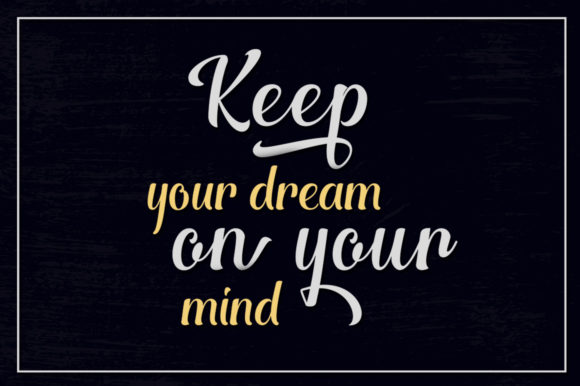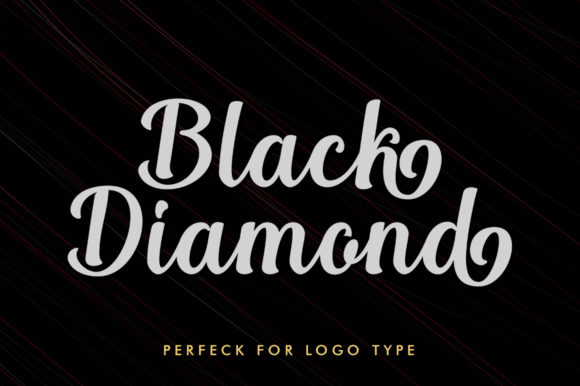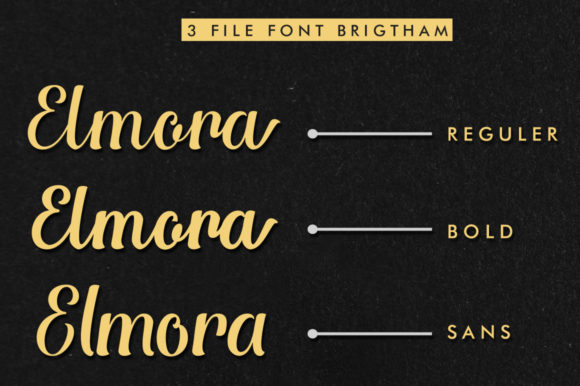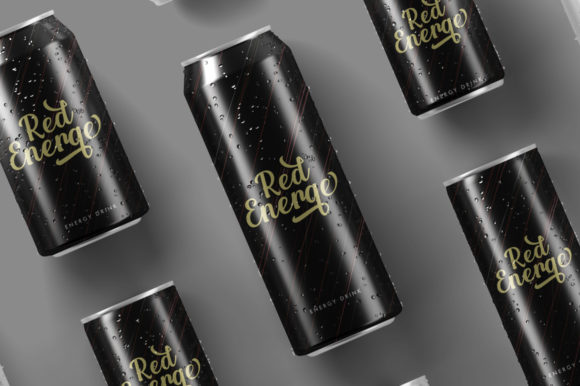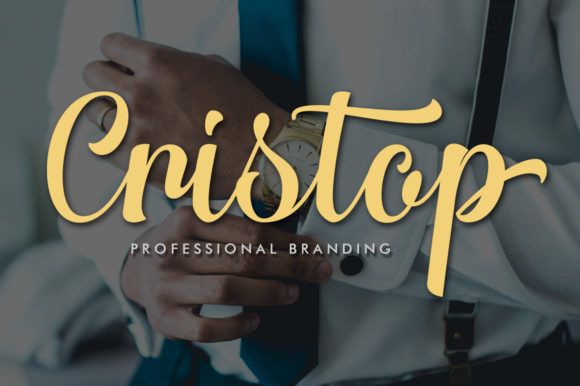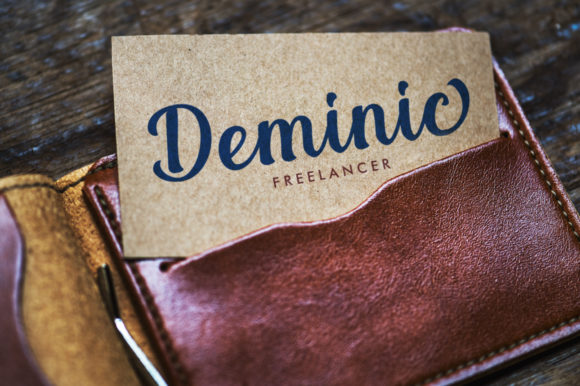
The Perfect Blend of Style and Substance: Introducing Brigtham Font
Have you ever stared at a blank page, trying to come up with the perfect headline for your latest design project? The cursor blinks impatiently, and your mind goes blank. But what if I told you that the solution to your creative conundrum lies in a single, bold font?
Meet Brigtham Font, the gorgeous and dynamic handwritten font that’s about to revolutionize your design game. Crafted to give your headlines and logotype projects a stylish touch, Brigtham Font reads as strong, confident, and dynamic, adding tons of nostalgic character to your designs. Whether you’re a seasoned designer or just starting out, Brigtham Font is a valuable addition to your toolkit, offering a unique blend of style and substance that’s sure to elevate your creative vision.
Brigham Font Key Features
- Unique Characteristics: The Brigham Font features a unique blend of modern and traditional elements, with a focus on legibility and readability.
- Font Weight: The font has multiple weights, including light, regular, medium, bold, and heavy, allowing for a range of visual effects.
Brigtham Font Review
Overall, I’m impressed with the Brigtham Font. It has a certain charm that’s hard to ignore. Here are some of its standout features:
- ✨ Unique blend of modern and vintage elements: The font’s aesthetic is both fresh and nostalgic, making it perfect for projects that need a touch of sophistication.
- ✨ Highly legible: The font’s design ensures that text remains clear and easy to read, even at smaller sizes.
- ✨ Robust character set: The font includes a wide range of characters, including Latin, Cyrillic, and Greek alphabets.
- ⚠️ Limited font weight options: While the font has a decent range of weights, it’s not as extensive as some other popular fonts.
- ⚠️ Not ideal for high-contrast use: The font’s design can sometimes make text appear washed out or difficult to read when used against a busy background.
Overall, I’d give the Brigtham Font 4 out of 5 stars. It’s a solid choice for projects that require a unique and legible font, but may not be the best fit for every design need.
Tips for Getting the Most Out of “Brigtham Font”
Use “Brigtham Font” for headings and titles to add a touch of sophistication to your designs.
Pair “Brigtham Font” with a clean and simple background to make it stand out.
Use “Brigtham Font” for:
1. Branding and logos.
2. Headings and titles in marketing materials.
3. Web design and development.
4. Print design and advertising.
Alternatives to “Brigtham Font” for Designers
Lato Font is a clean and modern sans-serif typeface designed by Łukasz Dziedzic. It’s ideal for use in digital products, especially those with a minimalist aesthetic. Lato Font is more geometric and has a more consistent x-height compared to Brigtham Font, making it a better choice for digital displays.
Comparison to Brigtham Font: Lato Font has a more contemporary feel and is more suitable for digital use, whereas Brigtham Font has a more traditional and elegant look.
Open Sans Font is a popular and highly legible sans-serif typeface designed by Steve Matteson. It’s perfect for use in body text, especially in applications where readability is crucial. Open Sans Font is more condensed and has a more even spacing compared to Brigtham Font, making it a better choice for long blocks of text.
Comparison to Brigtham Font: Open Sans Font is more modern and versatile, whereas Brigtham Font has a more classic and elegant feel.